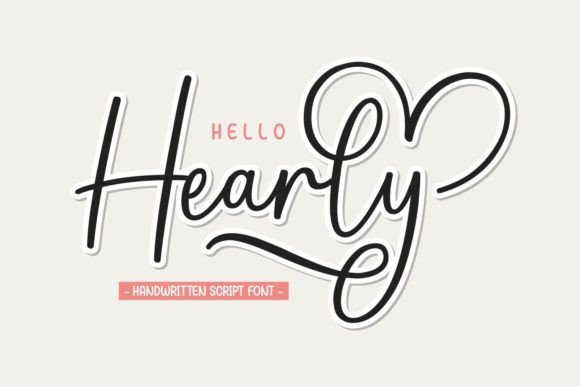
Introducing Hello Hearly Font, the stunning cursive handwritten font that will take your designs to the next level! Created by the talented Wakhamm from 7NTypes, this font family is a must-have for designers and creatives looking to add a touch of elegance and sophistication to their projects.
With its delicate and flowing strokes, Hello Hearly Font is perfect for a wide range of design ideas. From wedding invitations and logos to social media graphics and posters, this font family will give your designs a fascinating flair that is sure to capture attention.
One of the most exciting features of Hello Hearly Font is its PUA encoding. This means that you have access to all of the delightful glyphs and swashes effortlessly, making it easy to customize and create unique designs that stand out from the crowd.
Whether you are a professional designer or just starting out, Hello Hearly Font is a versatile tool that will help you achieve your creative vision. Its captivating and emotional appeal will make your designs truly memorable, leaving a lasting impression on your audience.